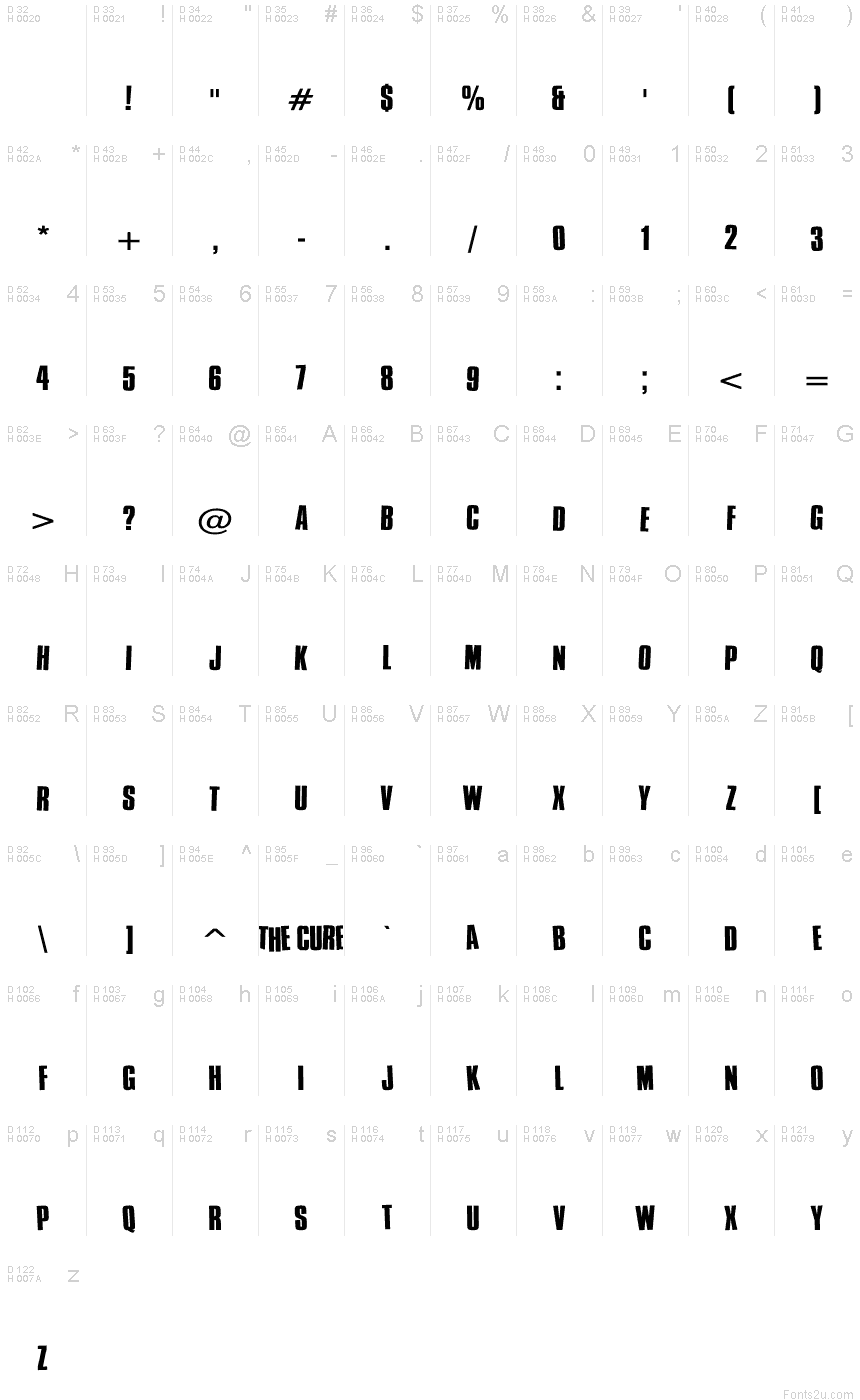
Cure- Wild Mood Swings
Cure Wild Mood Swings font by Footnote Fonts is a free sans serif typeface with a raw, compressed energy that feels ripped from a gig poster wall. Its tall, tightly packed letters and slightly rough, ink-heavy edges give every word a loud, breathless urgency, like text shouted across a dark venue. The rhythm is fast and punchy, so short phrases hit hard and stay readable even when you really crank up the size.
Using Cure Wild Mood Swings, you get a go-to voice for band logos, album covers, zines, streetwear graphics, event posters, and bold social headers. This free font thrives in all-caps, especially when you let it stretch wide across the page or screen. Pair it with a light, neutral grotesque for body copy to balance its intensity and keep your message sharp, gritty, and unmistakable.